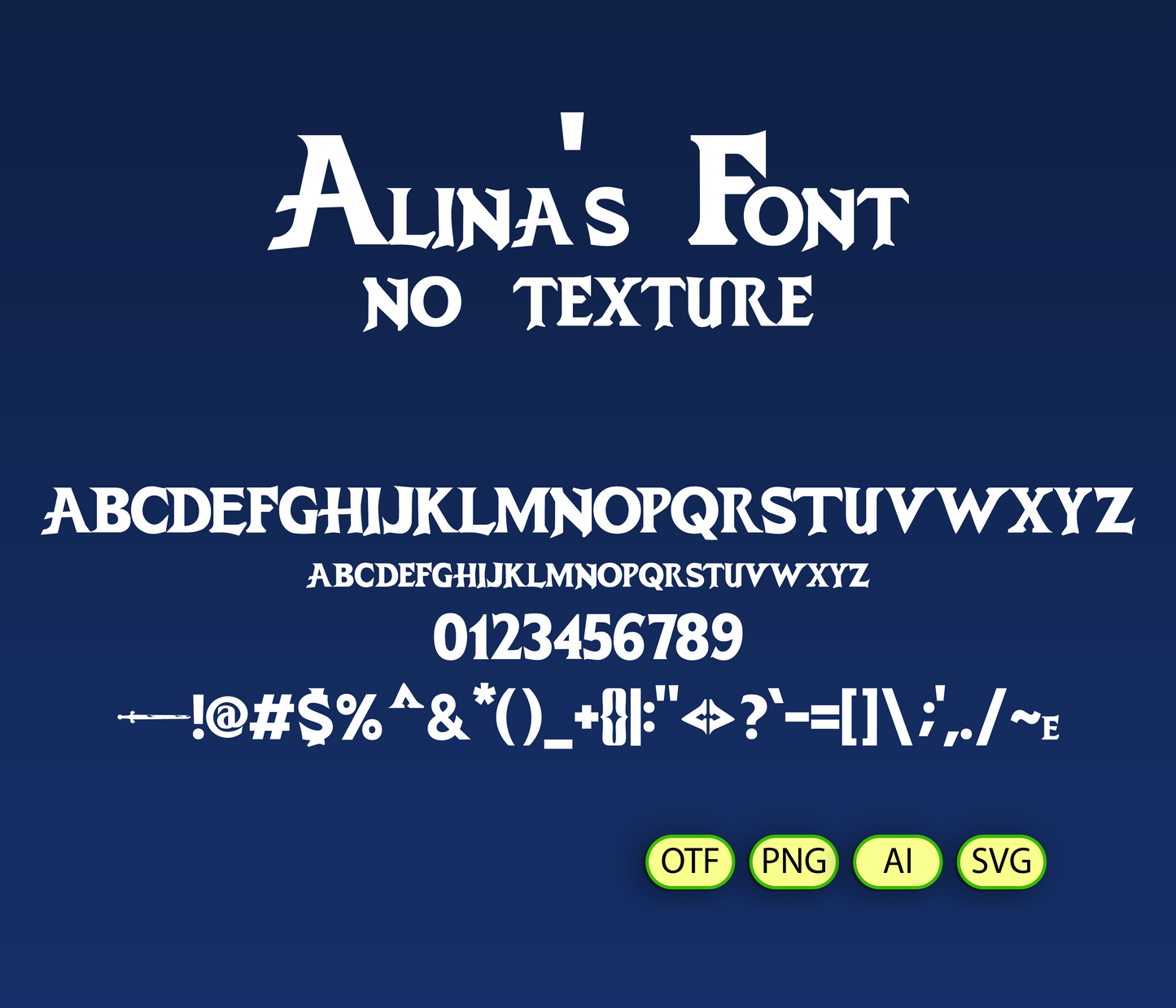
Magical Journey Font
Enter the extraordinary realm of wondrous quests with our Magical Journey font! This clean-lined typeface embodies the cheerful essence and unique look of the beloved cartoon series featuring heroic youngsters and magical companions. With its smooth, vector-based design and playful character, this font delivers the same enchanting spirit that captivated viewers of all ages.
What is the Magical Journey font?
Our Magical Journey font captures the cartoon's distinctive visual language with smooth, uncluttered letterforms that maintain perfect clarity at any size. Each character embodies the show's fantastical universe, populated by colorful royalty and mystical beings. This extensive character collection includes letters, numerals, and special characters ideal for creating your own enchanting designs!
- Clean Vector Design: Offers precise lines and smooth curves for perfect clarity
- Full Character Selection: Provides an extensive range of characters for unlimited creative freedom